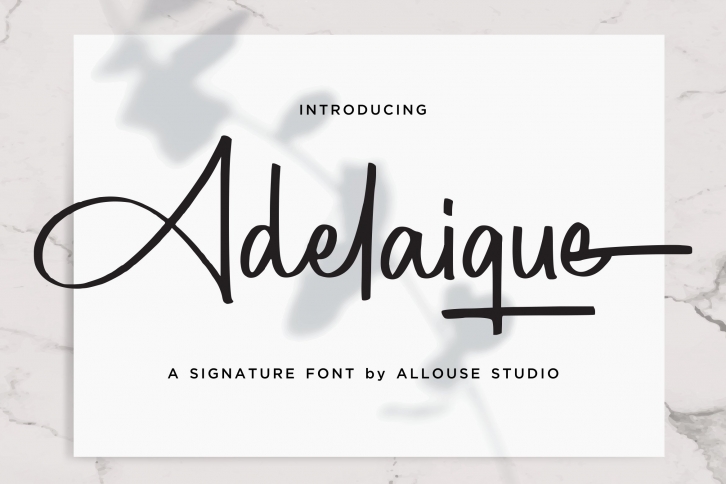
Adelaique is a beautiful font that was designed by Allouse Studio. It's a great choice for designers and creatives who need such a font. It was released on July 21, 2022 and the file size is 4.13 MB. Adelaique may give a more youthful, expressive and casual look to your project. It is a very beautiful, refined, elegant, and high-quality font.